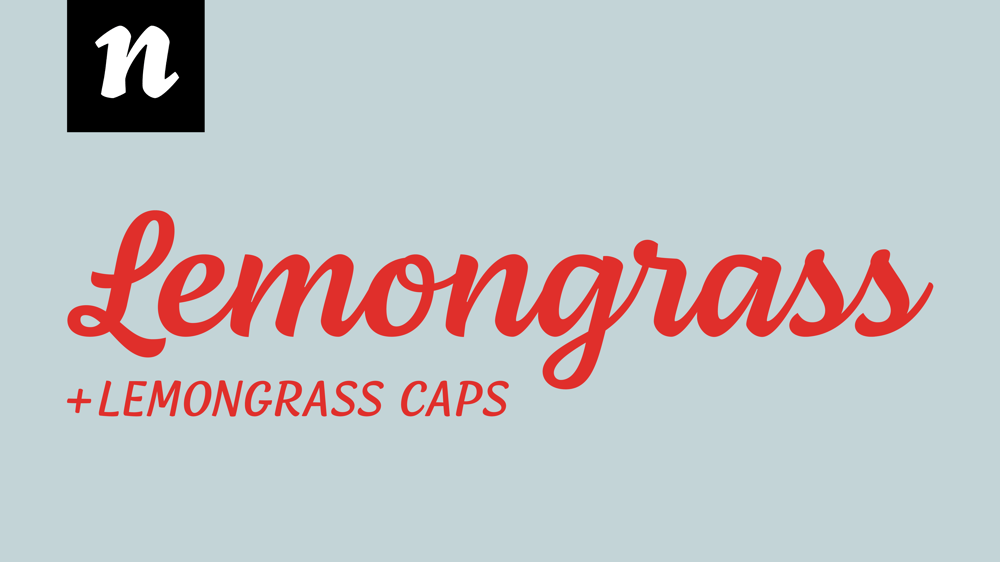
Lemongrass
Lemongrass font
Lemongrass Font Family was designed by Joana Correia and published by Nova Type Foundry. Lemongrass contains 2 styles and family package options. Lemongrass is a connected script typeface for display use. It was inspired by brush lettering and the sea and the strong winds that exist in Porto. These winds are called “nortada”, which was also the developing name of the font. It has low contrast and smooth connections to get a good rhythm in the text. Lemongrass can be used for branding and packaging where it will shine, but it can also be used in small texts creating beautiful content. Lemongrass has lots of ligatures, swashes and alternative shapes that will allow making your brand unique. It supports most western European languages making it a more useful display font. Lemongrass Caps comes to complement the main style.